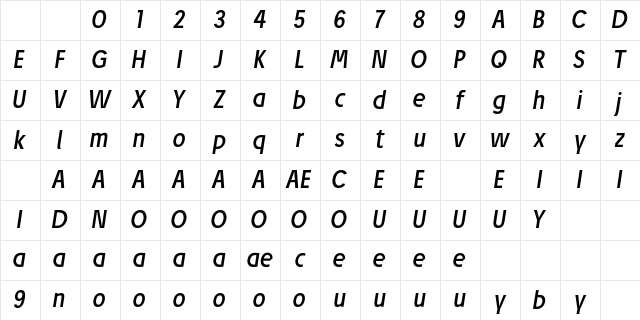
Josef Pro Italic
Foundry: Ingo Zimmermann, Augsburg. IN MEMORIAM JOSEF ZIMMERMANN
Designer: Ingo Zimmermann
Design Context for Josef Pro
Josef Pro is a composed and adaptable typeface that performs quietly and consistently across a wide range of design contexts. The slanted form adds forward momentum and visual energy.
Pro Tip: Use Josef Pro for emphasis, pull quotes, and subheadings where its slanted energy can add rhythm to the layout.
Who designed the Josef Pro Italic font?